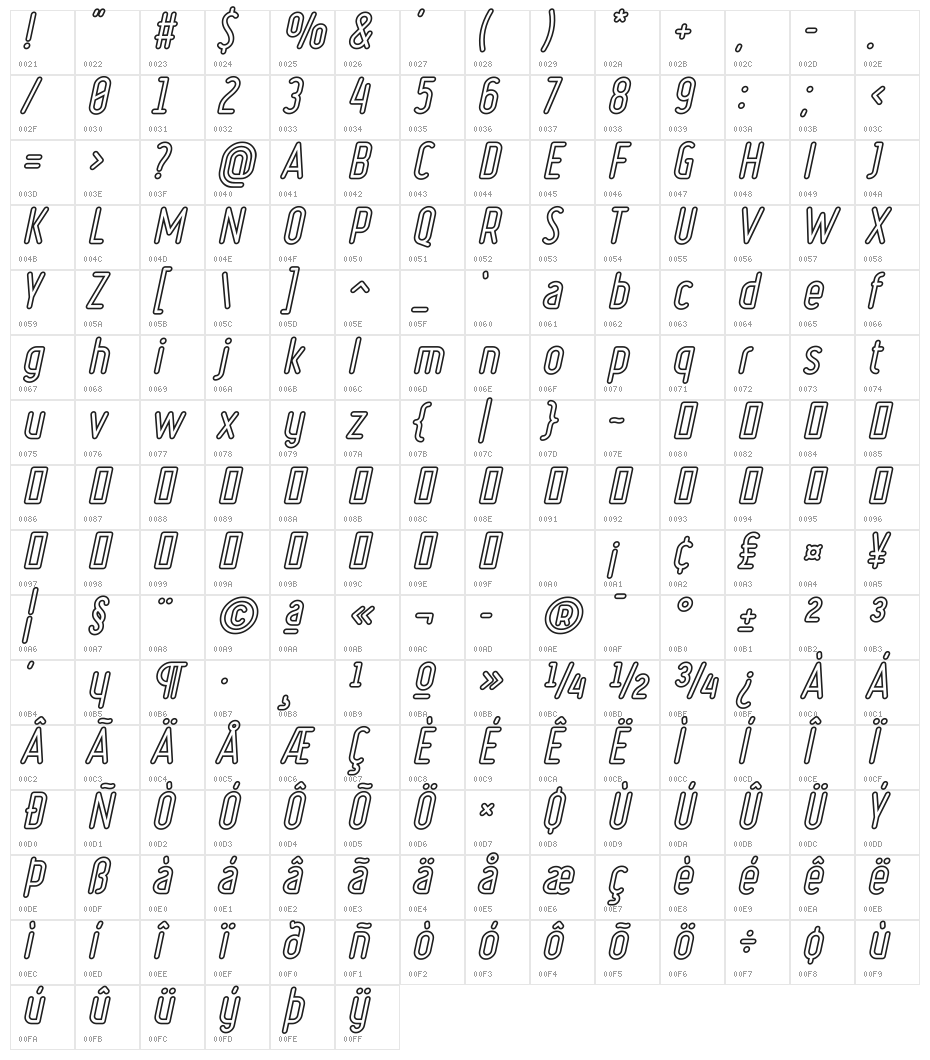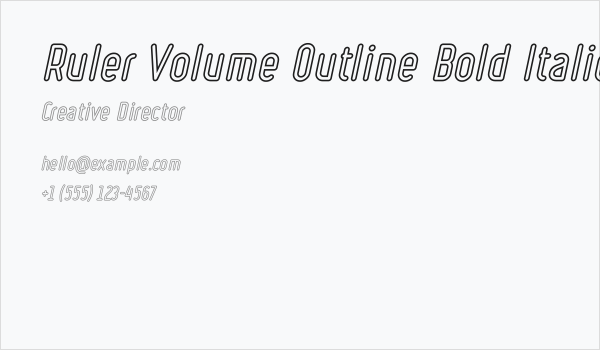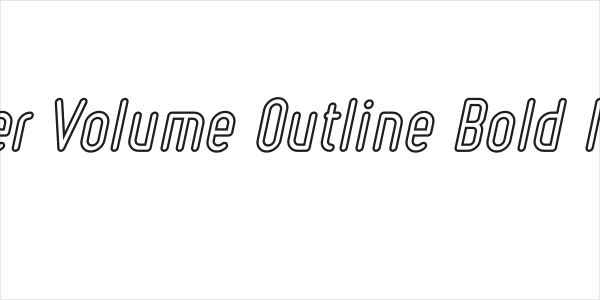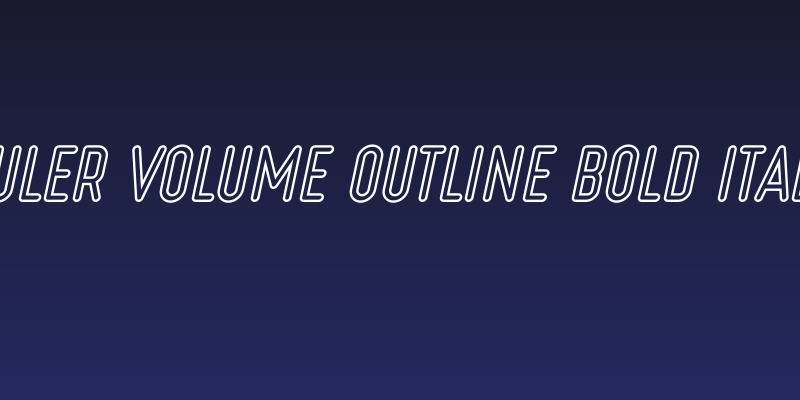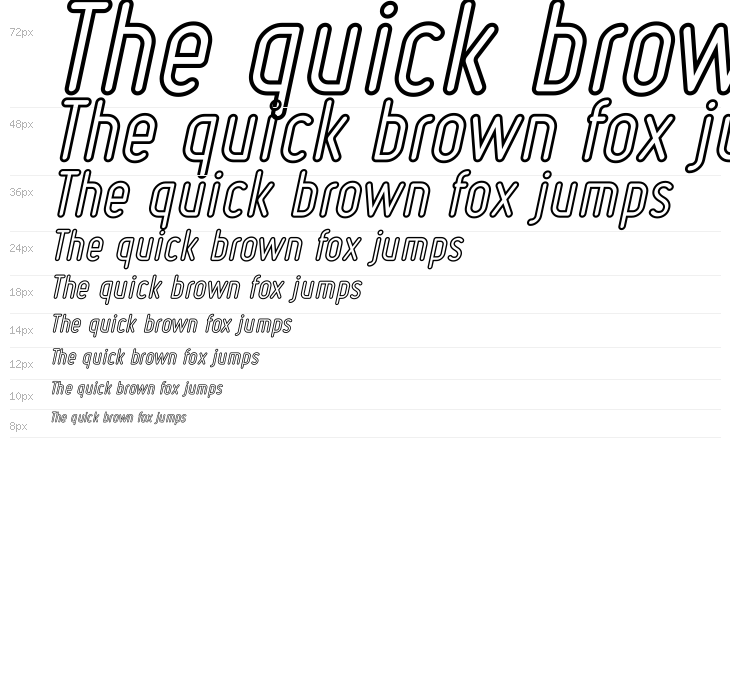
Ruler Volume Outline Bold Italic Font
Ruler Volume Outline Bold Italic Description
This font features a bold, italicized outline style that gives it a modern and dynamic appearance. The characters are designed with a consistent stroke width, creating a uniform look across both uppercase and lowercase letters, as well as numbers and special characters. The outline effect adds a sense of depth and volume, making it stand out in various design applications. Its clean and structured form makes it suitable for projects that require a contemporary and eye-catching typeface.
| Proposed Projects | Ideal for headlines, posters, branding materials, and any design that requires a striking and modern typeface. |